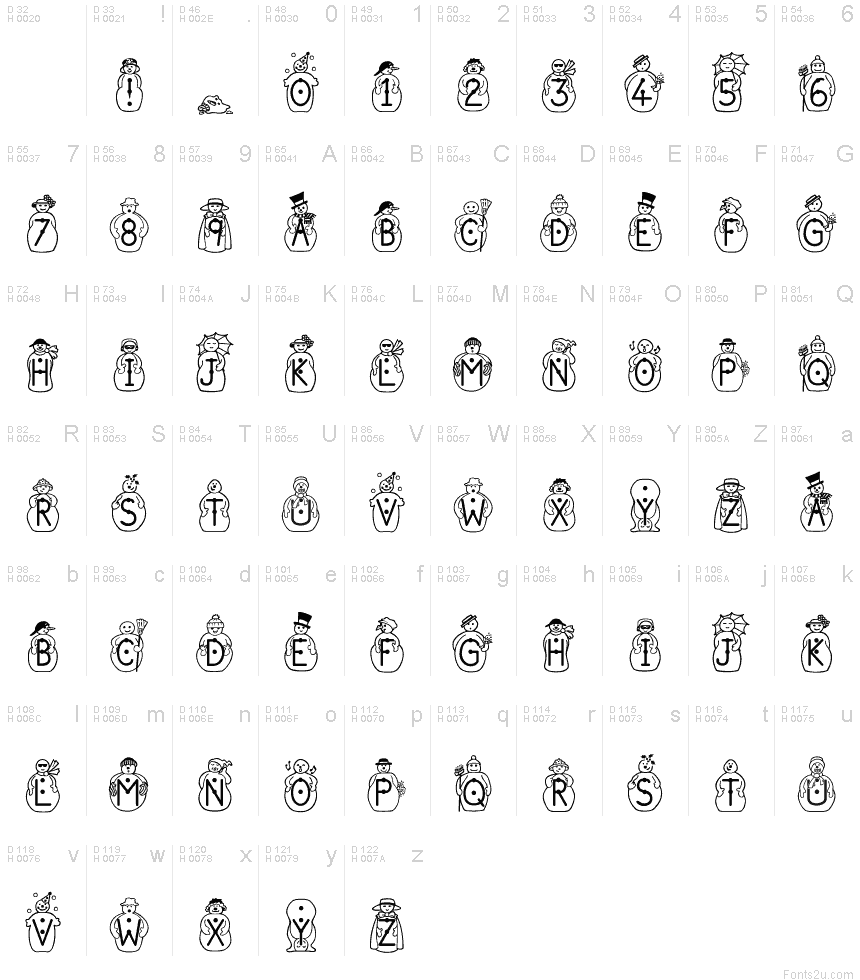
JFSnowbiz
JFSnowbiz font by Jester Font Studio is a free decorative font that turns every letter into a plump, doodled snow person. Each character sits inside a rounded, snowball body with playful faces, hats, and little details like stars, notes, or umbrellas, so text feels more like a comic strip than a headline. The black outlines are clean and chunky, giving this typeface a hand-drawn, wintery charm that stays legible even when the letters pile up like fresh snow.
Using JFSnowbiz instantly adds a cozy, holiday mood to kids’ books, Christmas cards, bulletin boards, classroom worksheets, party invitations, and craft projects. This free font works beautifully when you keep it big and bold, letting each snow figure stand on its own. Pair it with a simple rounded sans serif for body copy so the lively characters stay center stage while everything else stays easy to read.